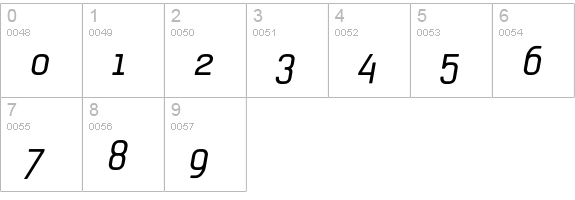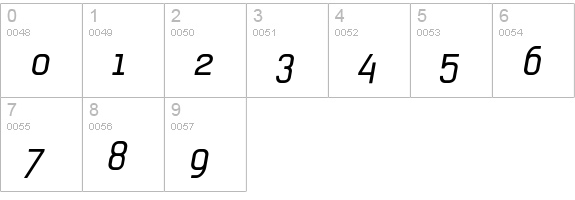
BetaSemi-NormOblique Font Details
BetaSemi-NormOblique is a sleek and modern font that combines elegance with a touch of creativity. Its unique oblique style adds a dynamic flair to any design project, making it perfect for a wide range of applications. The semi-norm weight strikes the perfect balance between boldness and subtlety, making it versatile for both headers and body text. This font is not only visually striking, but also easy to read, making it suitable for both print and digital media. Whether you're designing a website, creating a poster, or working on a branding project, BetaSemi-NormOblique is sure to make a statement. Best of all, BetaSemi-NormOblique is available for free download at FontsMarket.com. This means you can easily access this stylish font and use it in your projects without any cost. Don't miss out on this fantastic opportunity to enhance your designs with BetaSemi-NormOblique!